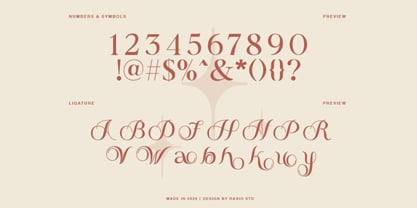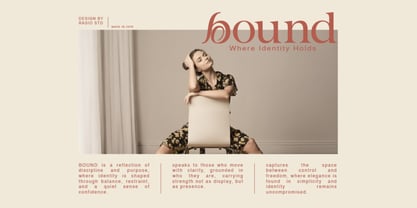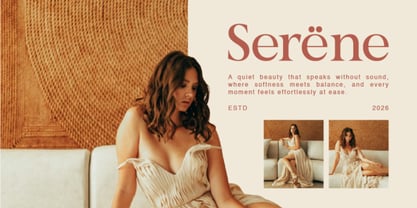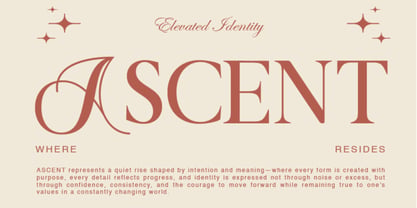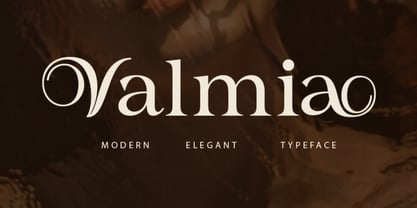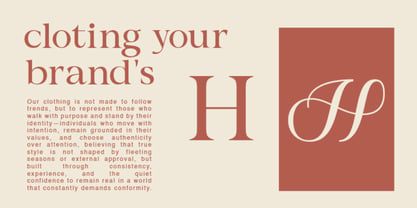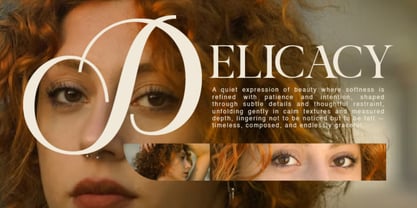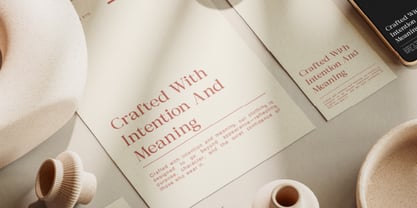
Valmia
La familia tipográfica Valmia fue diseñada por Fajar Indra y publicada por Rasio Studio. Valmia contiene 1 estilos. Más información sobre esta familia
Valmia is a modern elegant serif typeface featuring graceful curves, high contrast strokes, and ornamental alternates, Valmiao evokes sophistication and timeless style. This typeface includes uppercase, lowercase, numerals, punctuation, and stylish ligatures that add a bespoke character to your designs. Valmia is ideal for creative professionals and brands looking to elevate their design aesthetics. Its classic elegance and unique detailing make it suitable for high-end fashion branding, beauty products, editorial magazine layouts, packaging design, logo creation, wedding stationery, and digital campaigns